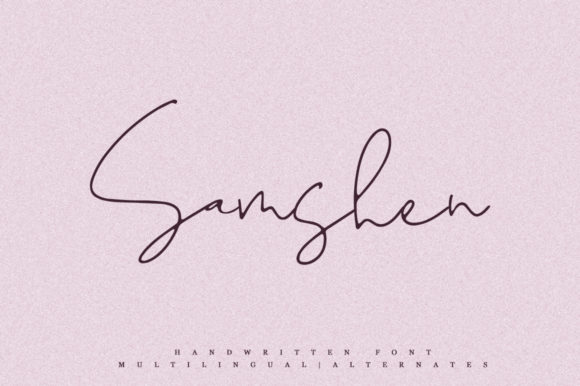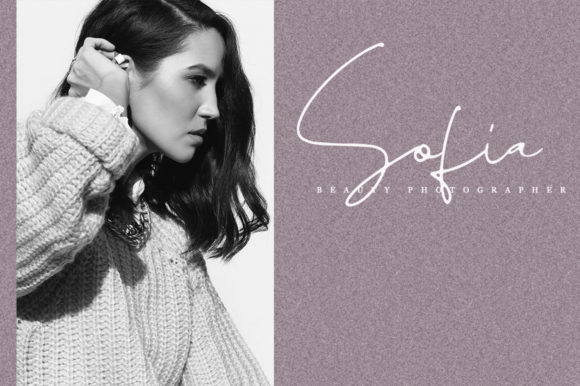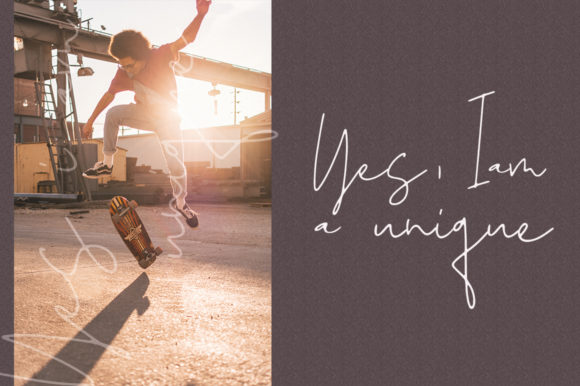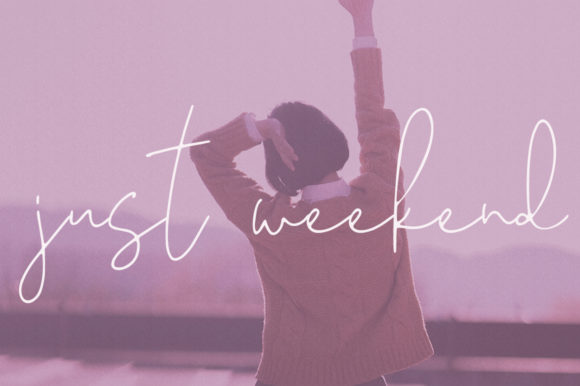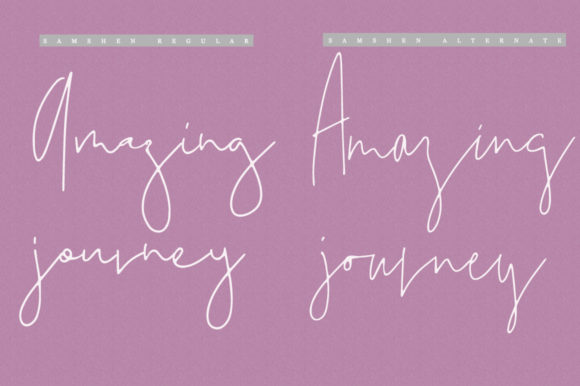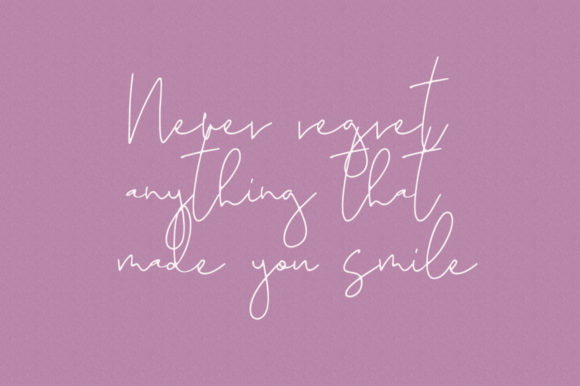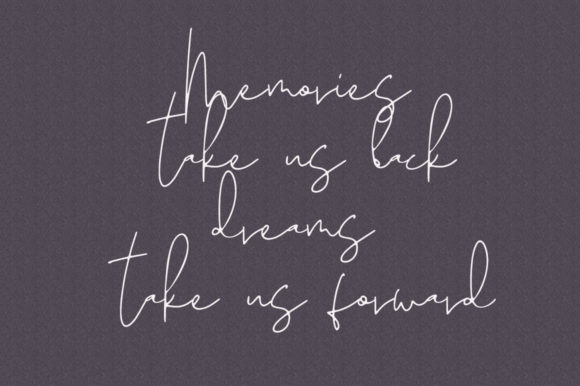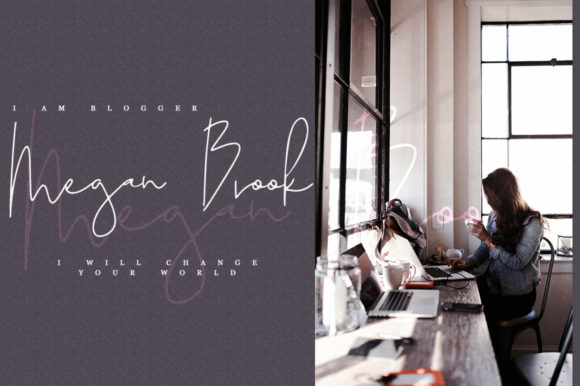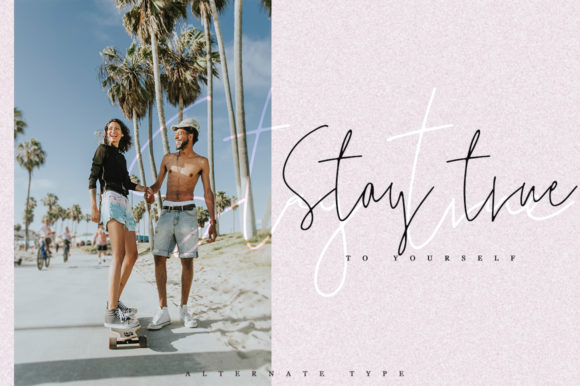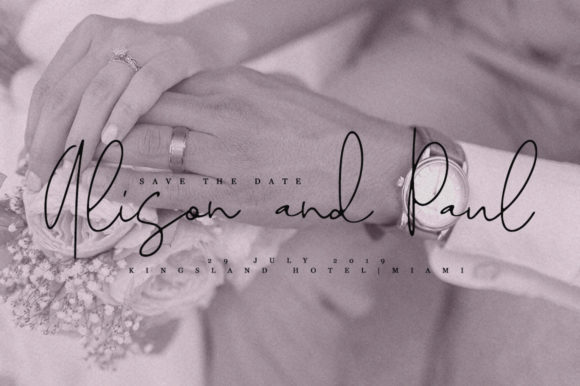
Samshen Font
About Samshen Font
Samshen is an amazing, elegant and modern handwritten script font. It has a sophisticated and authentic feel, and will elevate any design project with its lovely charm.